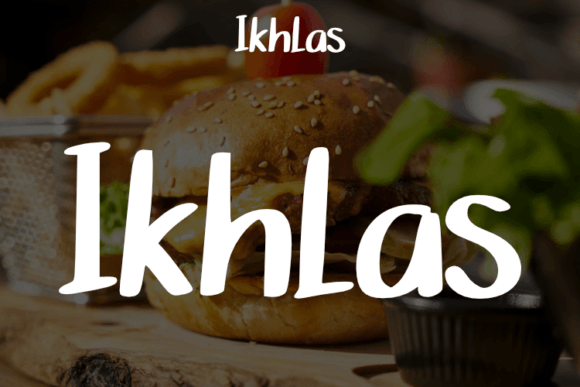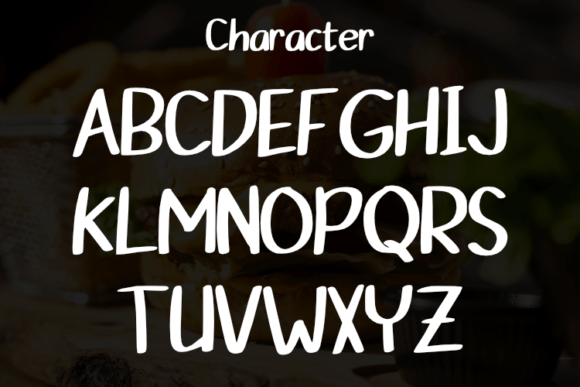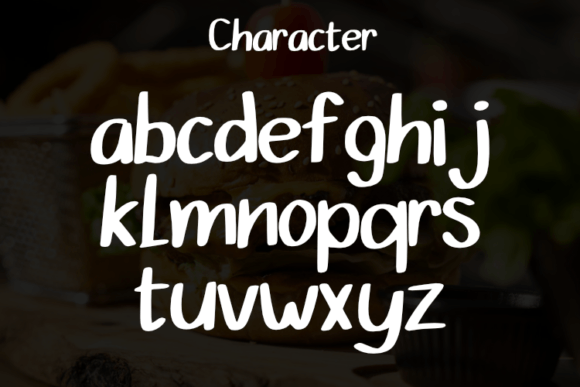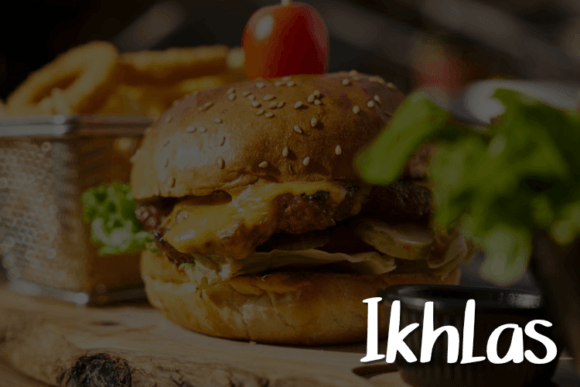
Ikhlas Font
“Ikhlas” is presented as a script typeface distinguished by its simple style and modern aesthetic. Tailored for a range of design applications, this typeface is particularly well-suited for creating elegant and luxurious logos, book or movie design titles, fashion brands, magazines, clothing, fonts, quotes, and more.
The simplicity of Ikhlas’ style is a notable feature, contributing to its versatility. The clean and contemporary aesthetic ensures readability and adaptability across various design contexts. Whether applied to logos, magazine layouts, or expressive quotes, the simplicity of Ikhlas allows it to seamlessly integrate into diverse design scenarios.
The modern look of Ikhlas aligns with current design trends, making it a relevant and attractive choice for contemporary projects. In the realm of fashion brands, magazines, and book or movie design titles, the modern appeal of Ikhlas can contribute to a fresh and stylish visual identity, capturing the attention of your audience.
The script nature of Ikhlas adds a touch of fluidity and elegance to the typeface. This attribute is particularly advantageous for creating luxurious and personalized logos, where the script style imparts a sense of handcrafted sophistication. Additionally, the script style brings a human touch to quotes or other expressive elements, enhancing the overall impact of your designs.
In summary, Ikhlas is a versatile script typeface designed to bring a modern and elegant touch to your creative projects. Whether you’re working on logos, fashion brands, magazines, or quotes, Ikhlas’ simple style and contemporary look make it a valuable design tool. Let Ikhlas be the choice that adds a touch of luxury and sophistication to your visual creations.